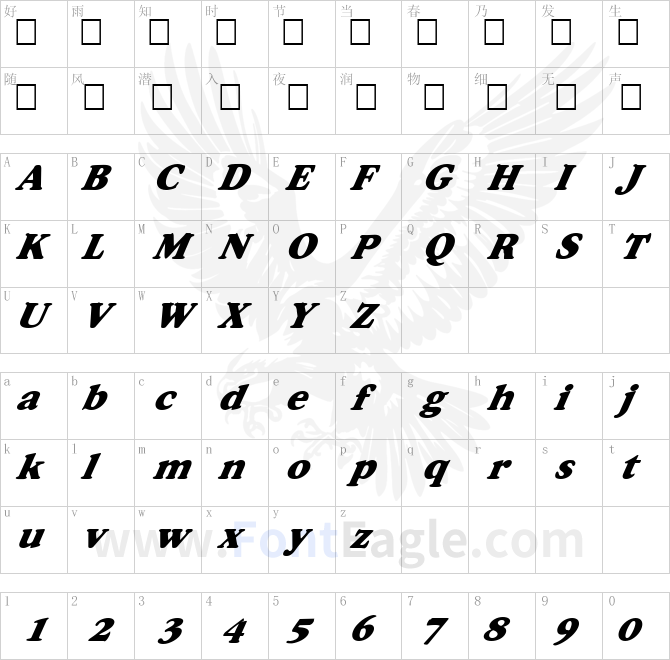
FZ-ROMAN-34-ITALIC is a great font, widely used in graphic design, single-page menu design, poster design and other fields, and is deeply loved by designers.FZ-ROMAN-34-ITALIC download.